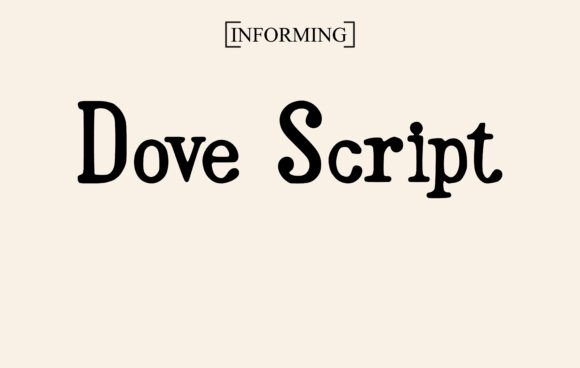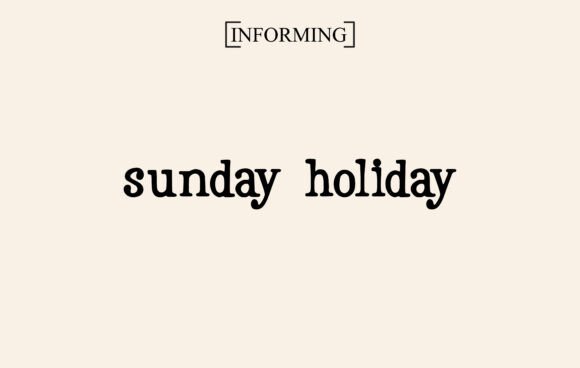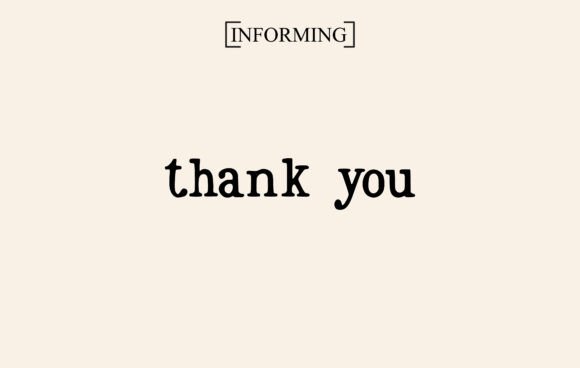
Dove Script Font
About the Dove Script Font
Unleash your creativity with Dove Script Font, a versatile font perfect for a wide range of applications. Dove Script is a warm, inviting serif font with a gentle vintage tone. Featuring rounded curves and thoughtful spacing, it brings a refined softness perfect for faith-based messages, elegant branding, and sentimental stationery.
Dove Script’s gentle curves and vintage feel make it ideal for projects requiring a touch of refined elegance, such as wedding invitations, logos for boutique businesses, or short-form editorial pieces. It excels in headlines, short paragraphs, and packaging design where its delicate charm can shine. However, its low x-height and stylistic details make it less suitable for large blocks of body text or UI elements where readability is paramount.
Pairing Dove Script with a clean sans-serif like Montserrat or a geometric sans-serif such as Futura would create a strong visual contrast, balancing its soft curves with sharp lines. For a more traditional feel, consider pairing it with a classic serif like Garamond or a slightly more modern serif like Playfair Display.
The overall personality of Dove Script is undeniably warm and approachable, yet sophisticated. It projects a sense of timeless elegance without being overly fussy or ornate.
Dove Script Font Example